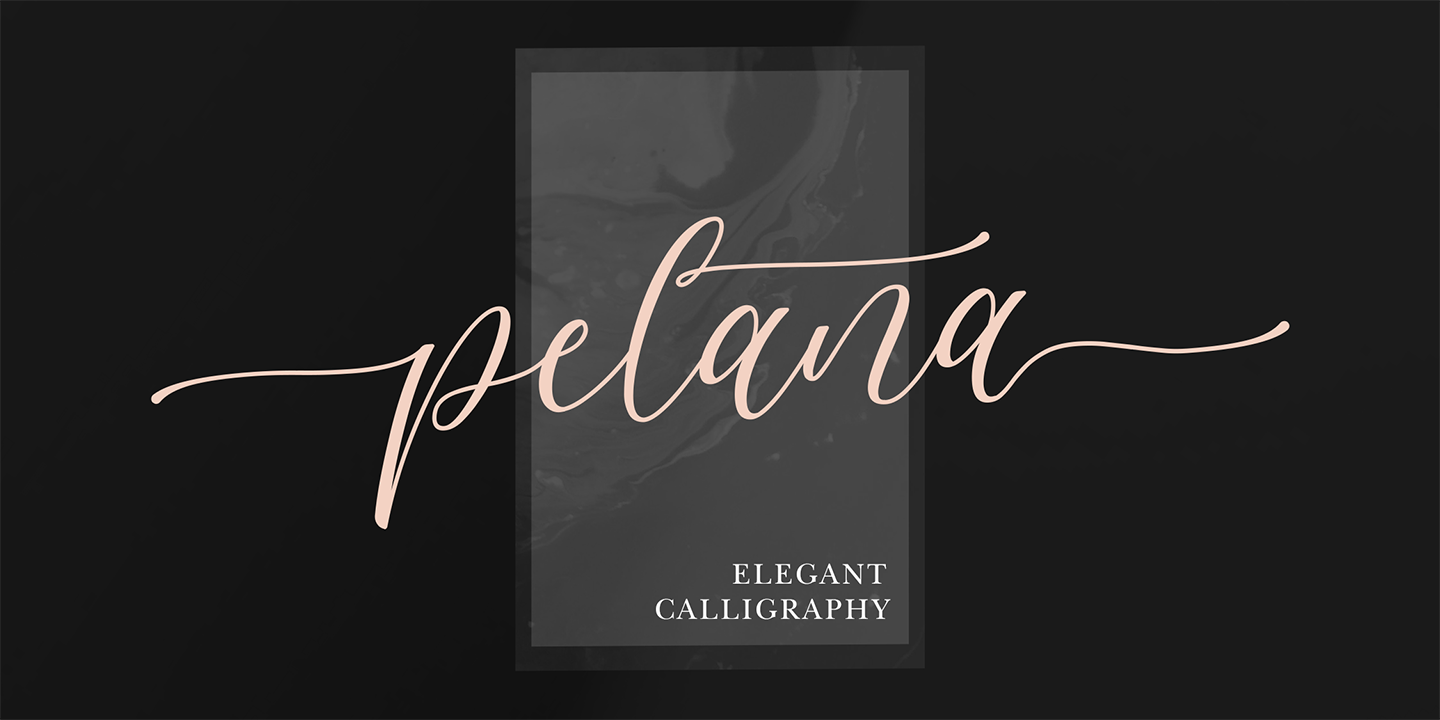
The Pelana Font excels in various design applications including equestrian facility branding, western ranch communications, saddle maker identities, horseback riding school signage, rodeo event promotions, country stable marketing, rural heritage materials, cowboy lifestyle brands, authentic western restaurant identities, and distinguished equestrian projects that demand saddle-crafted elegance and western sophistication.
What makes the Pelana Font exciting is its authentic embodiment of western heritage and equestrian craftsmanship through letterforms that capture the essence of traditional saddle-making and the rugged elegance of cowboy culture. This typeface demonstrates exceptional character through carefully crafted letters that suggest the smooth leather of well-made saddles, the skilled artistry of western craftsmen, and the enduring appeal of authentic ranch life. The font's western personality makes it perfect for equestrian organizations and western lifestyle brands seeking to communicate authentic heritage, craftsmanship quality, and the kind of time-tested reliability that defines genuine western culture through typography that literally carries the spirit of the open range.
The Pelana Font family typically includes sturdy weight variations that enhance the western aesthetic, featuring robust styling options and extended character sets optimized for equestrian communications and western marketing applications. These family options often include saddle-inspired alternates, western decorative elements, and ranch symbols that provide designers with comprehensive tools for creating authentically western typography that celebrates equestrian traditions while maintaining contemporary design appeal and rustic authenticity.
Equestrian professionals and western lifestyle brands consistently choose Pelana Font Free Download for projects requiring typography that communicates western authenticity and equestrian excellence. This typeface delivers exceptional performance in ranch marketing, equestrian branding, and western communications where establishing heritage credibility and demonstrating genuine cowboy culture appreciation is essential for community trust. The font's saddle character makes it particularly effective for rodeo and ranching applications. Download Pelana Font Free Download today to access this authentic typeface that transforms western communications with its saddle-crafted sophistication and equestrian elegance, creating compelling ranch experiences that honor the magnificent traditions of western horsemanship while celebrating the enduring appeal of authentic cowboy culture and skilled leather craftsmanship.